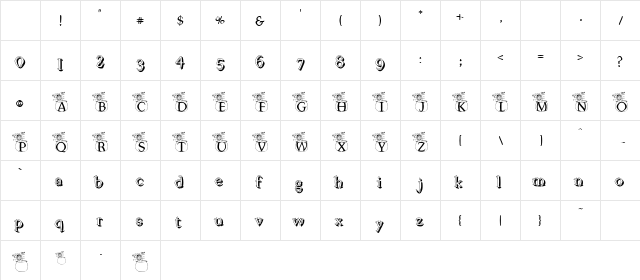
Leprechaun2 Regular Free Font
Leprechaun2 Regular
Leprechaun2 Family
Leprechaun2 Regular
Design Context for Leprechaun2
Leprechaun2 is a composed and adaptable typeface that performs quietly and consistently across a wide range of design contexts.